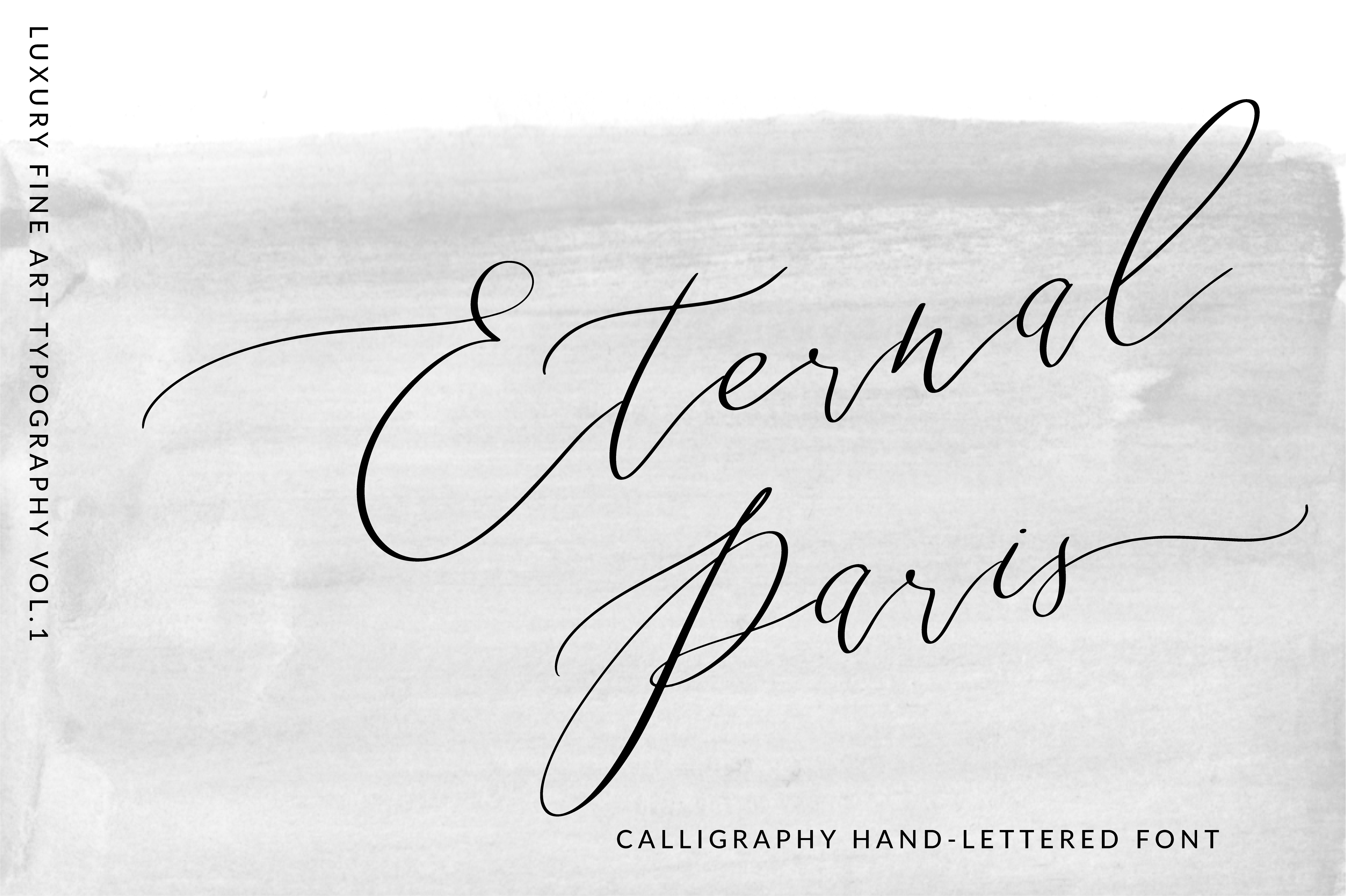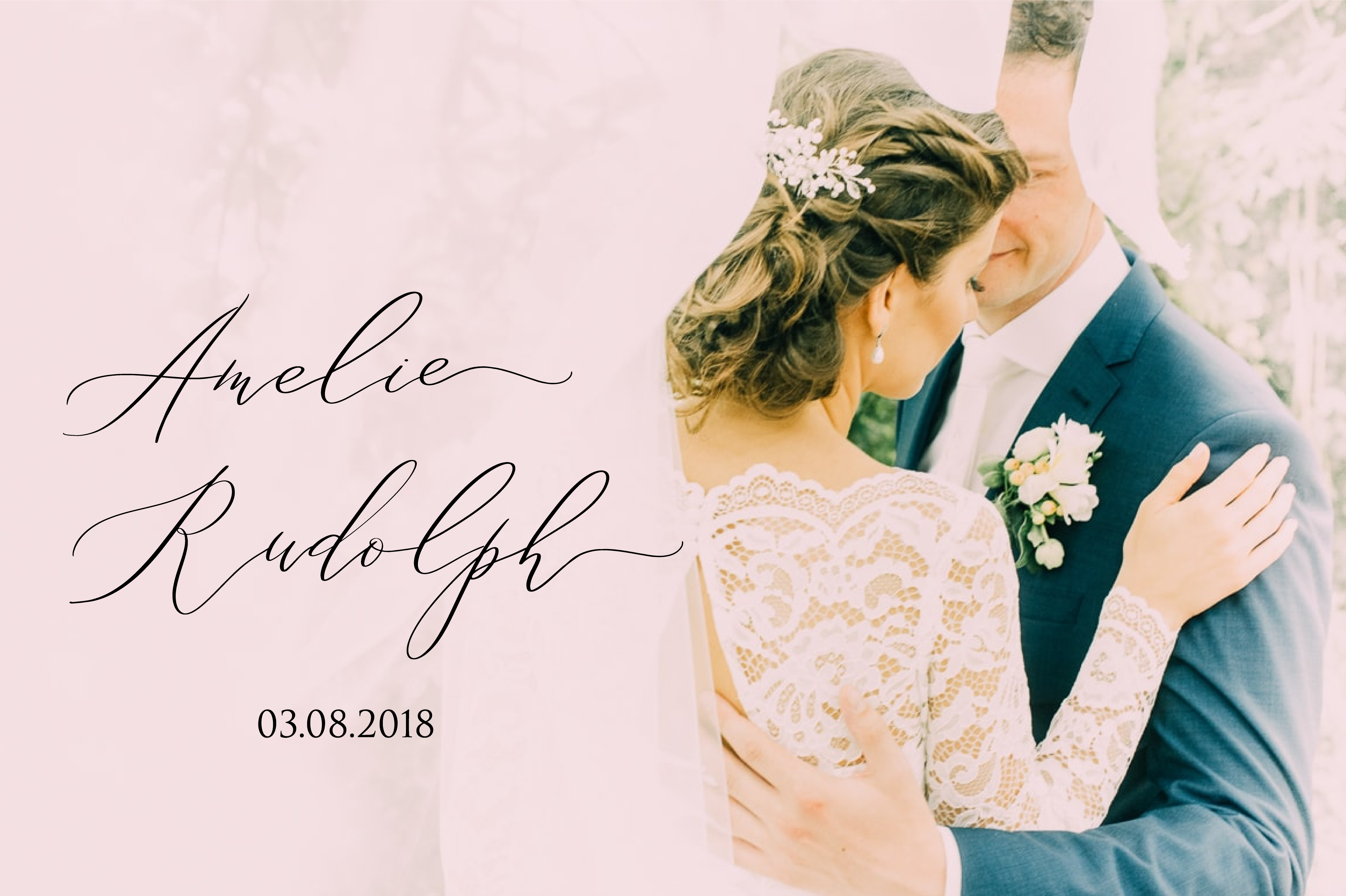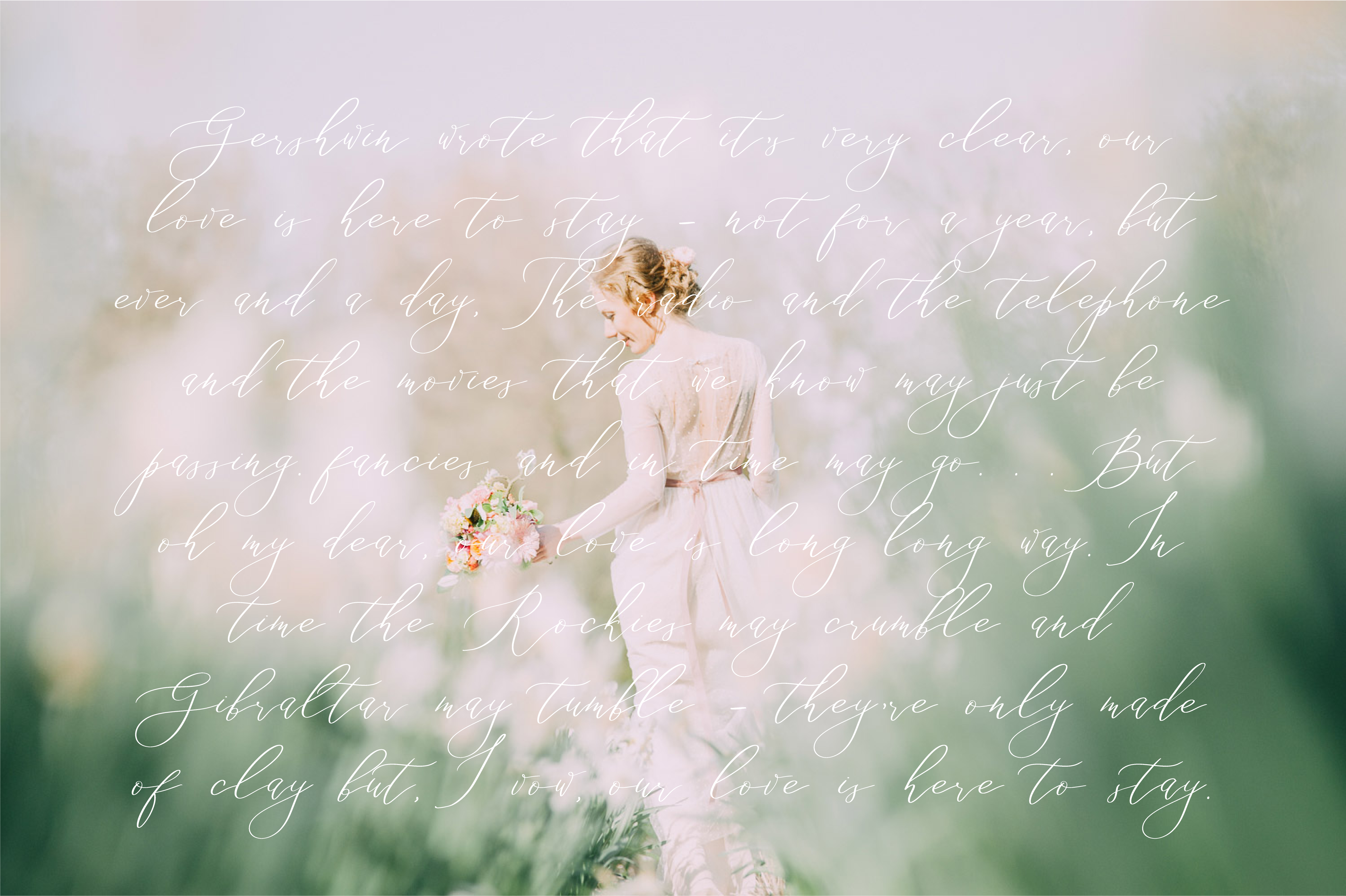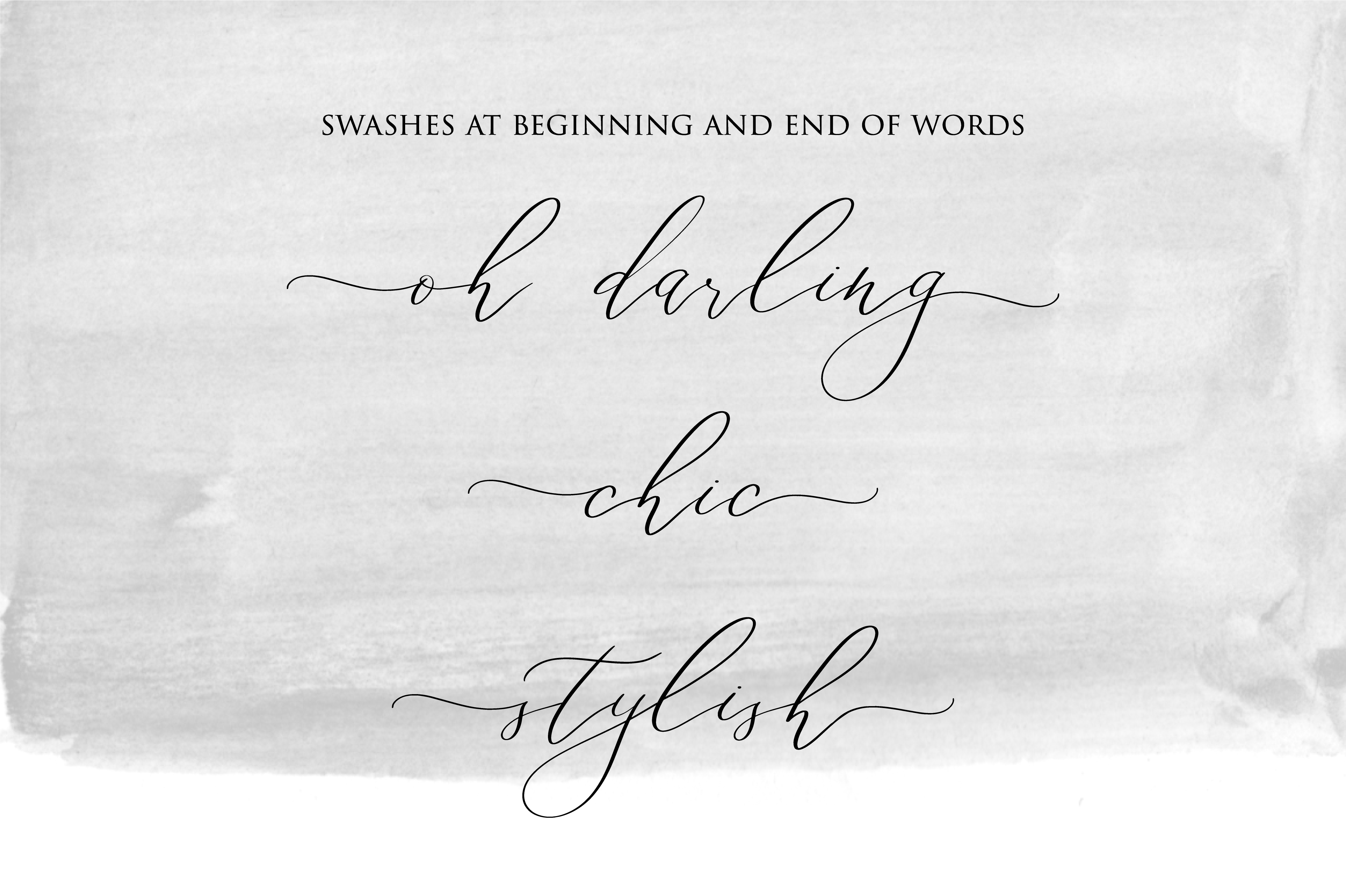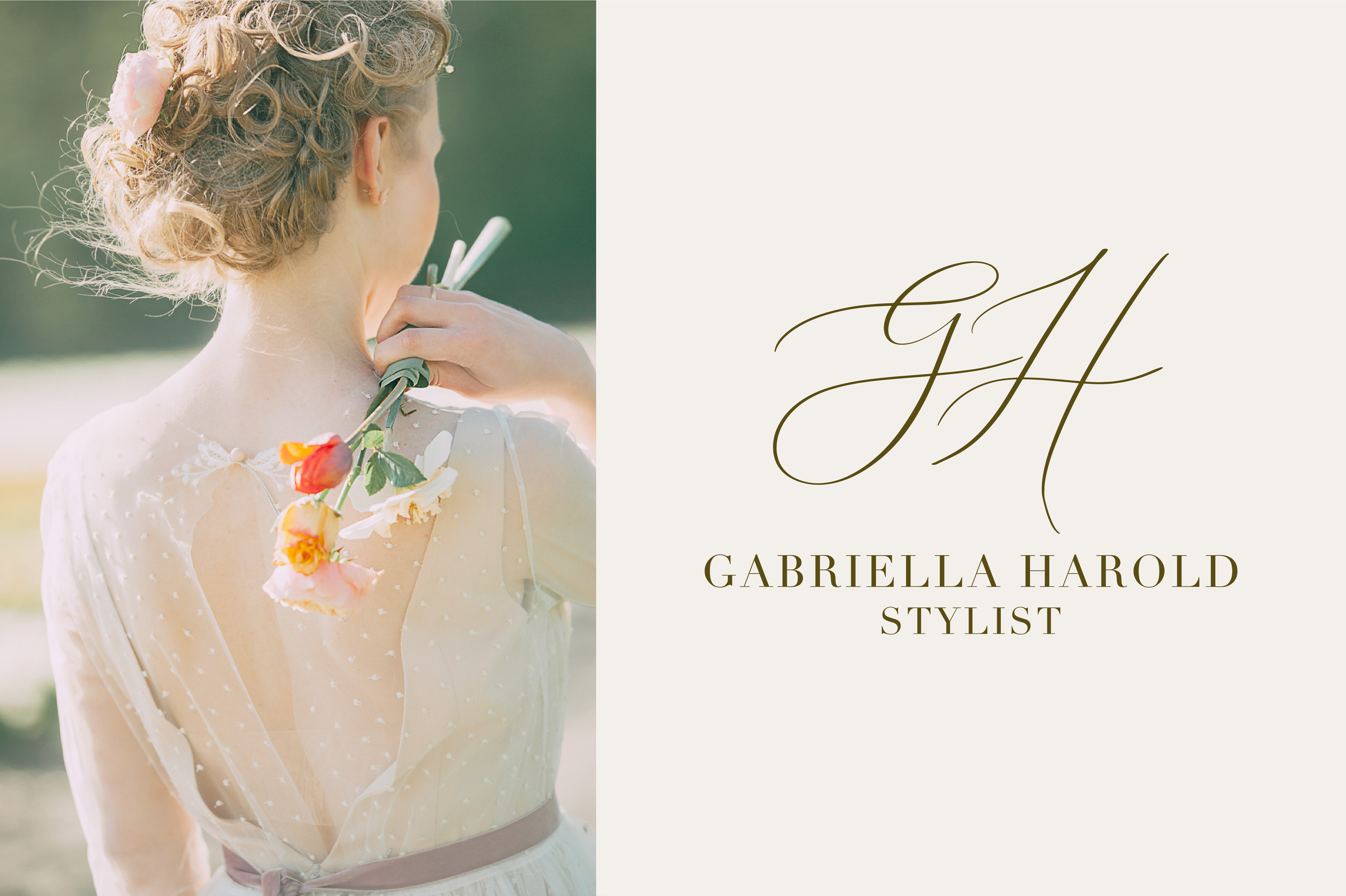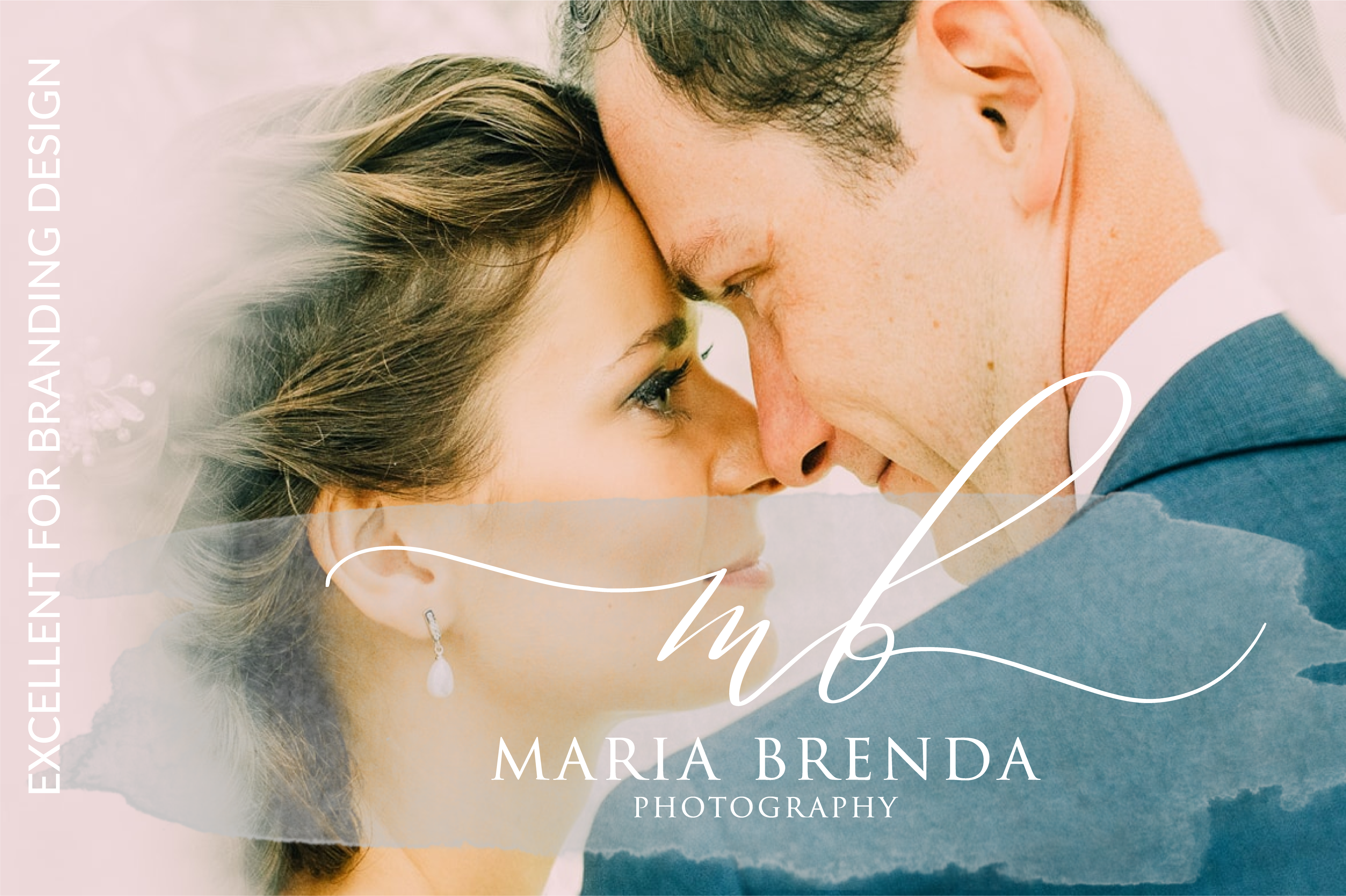
LUXURY FINE ART TYPOGRAPHY VOL.1
Eternal Paris is a crème de la crème modern calligraphy font with elegant, debonair feeling. It is perfect for branding, wedding invites, chic Instagram posts and maybe for red wine label.
Eternal Paris includes full set of gorgeous uppercase and lowercase letters, numerals, a large range of punctuation and ligatures. All lowercase letters include beginning and ending swashes, giving realistic hand-lettered style.